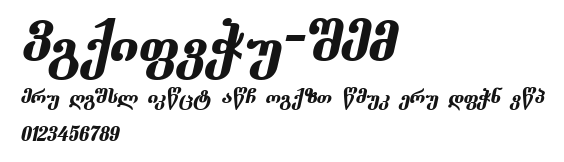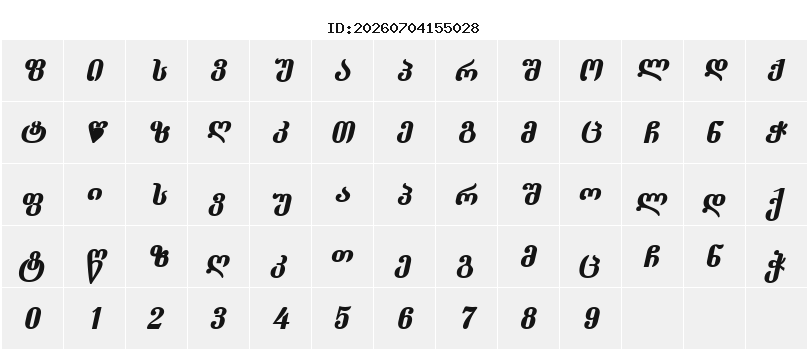
Dumbadze-ITV Preview
• Font Name: Dumbadze-ITV
• Font ID: FontMonger:Dumbadze-ITV Bold Italic
• Full Font Name: Dumbadze-ITV Bold Italic
• PostScript Name: Dumbadze-ITVBoldItalic
About Dumbadze-ITV.ttf
Dumbadze-ITV.ttf is a modern, elegant sans-serif font designed for ultimate readability and visual harmony. Perfect for branding, headlines, web design, and print materials.